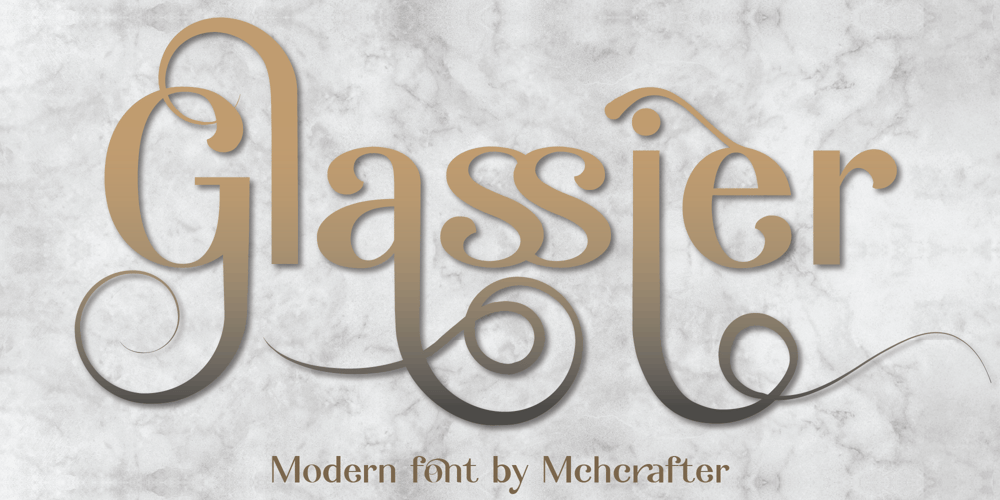
Glassier Font Family was designed by El Mehdi CHOUYOUKH and published by Mchcrafter. Glassier contains 1 styles and family package options. Glassier is a unique and very elegant font for brand and logo design.It is a bold, detailed and assertive sans serif font. This font is imposing and features uniquely shaped alternatives, and as a result, it will easily match a wide range of creations that require a distinct touch. Glassier includes: All uppercase & lowercase letters All numbers 0-9 & Punctuation Symbols Multiligual Letters Ligatures & Alternates